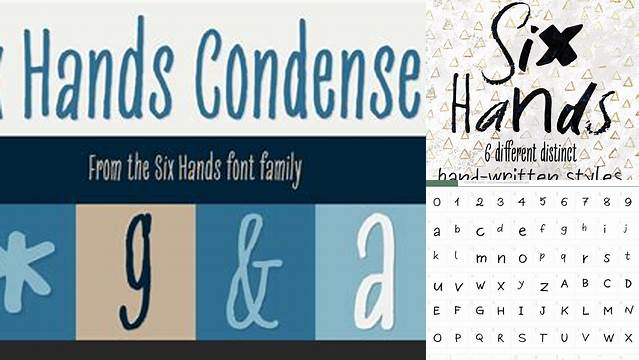
Hey guys! Are you looking to spice up your designs with a unique and playful font? Look no further! In this article, we're diving deep into the world of Six Hands font, a super cool typeface that can add a touch of whimsy and character to any project. We'll explore everything from where to find it for free download to how to use it effectively in your designs. So, buckle up and let's get started!
1. What is Six Hands Font?
Let's kick things off by understanding what exactly Six Hands font is. This font is known for its quirky, hand-drawn aesthetic, making it perfect for projects that need a personal and informal touch. Think greeting cards, posters, logos, and even website headers! Its unique character shapes and slightly irregular lines give it a distinct personality that stands out from more generic typefaces. Imagine using Six Hands font for a children's book or a fun social media graphic – it's bound to catch the eye and leave a lasting impression.
The beauty of Six Hands font lies in its versatility. While it’s undeniably playful, it can also be used in more professional settings where a touch of creativity is desired. For example, a small business specializing in handmade goods might use Six Hands font in their branding to convey a sense of authenticity and craftsmanship. The possibilities are truly endless! So, keep Six Hands font in mind as we delve further, especially if you aim for a design that feels both approachable and original. Remember, a well-chosen font is more than just text; it’s a vital part of your visual communication.
With its handcrafted charm, Six Hands font brings a warmth that digital fonts often lack. It evokes a sense of creativity and care, making it an excellent choice for projects where you want to connect with your audience on a personal level. Whether you’re designing a birthday card for a friend or a poster for a local event, Six Hands font can help you convey your message with style and flair. Its playful yet legible style ensures your text is both eye-catching and easy to read, striking the perfect balance between aesthetics and functionality.